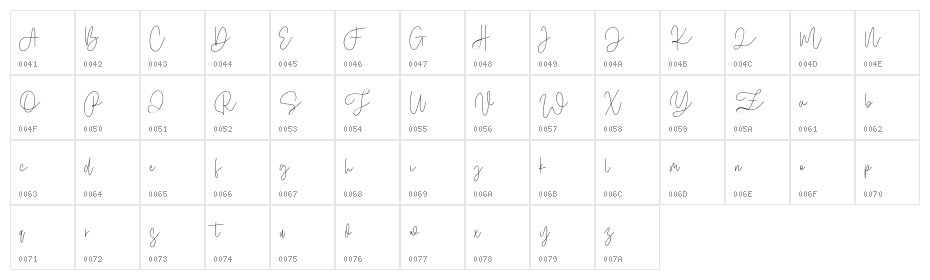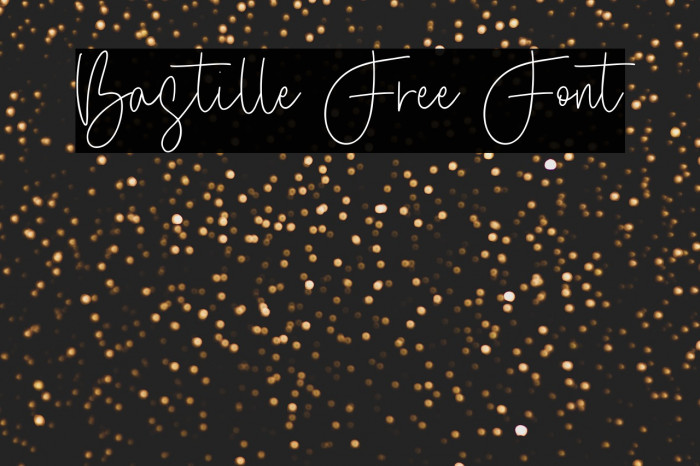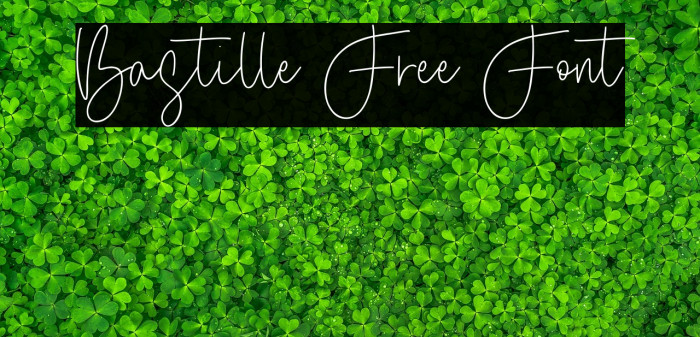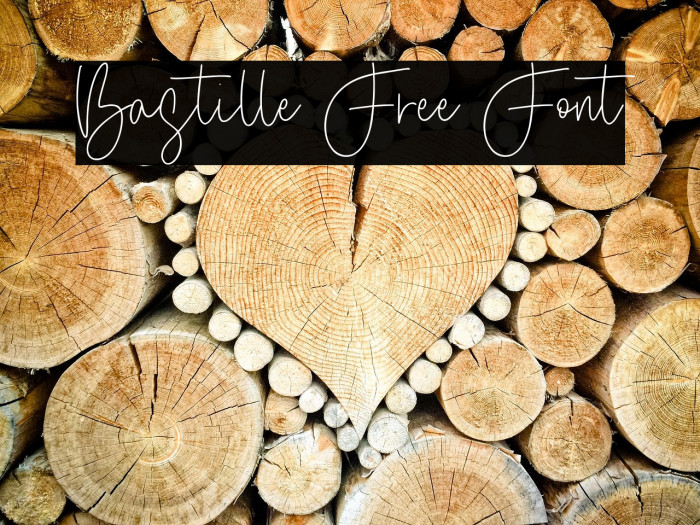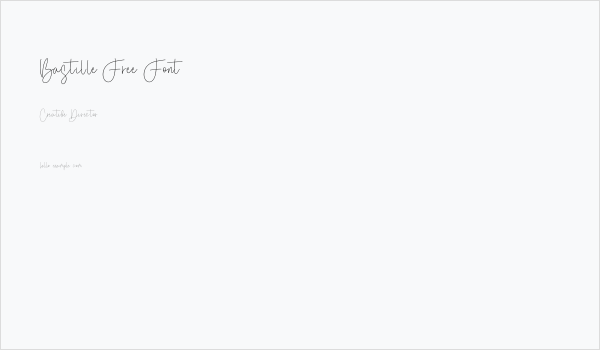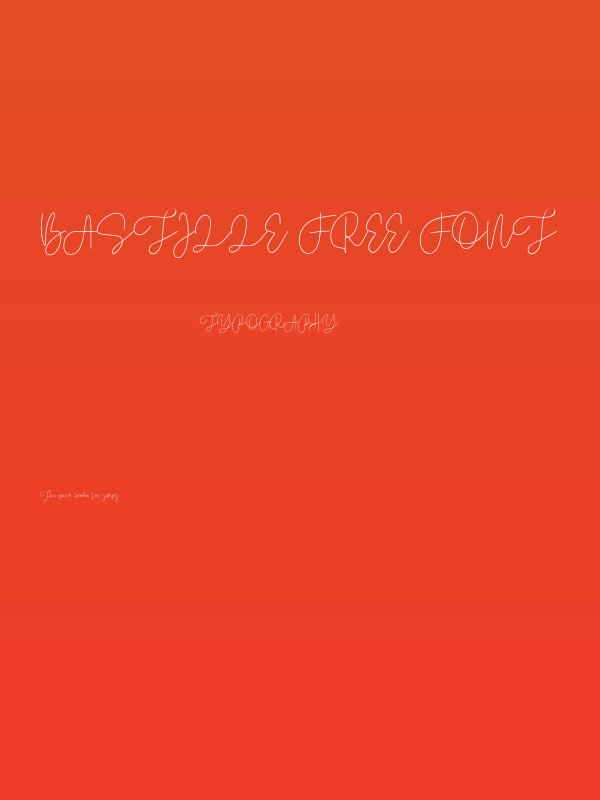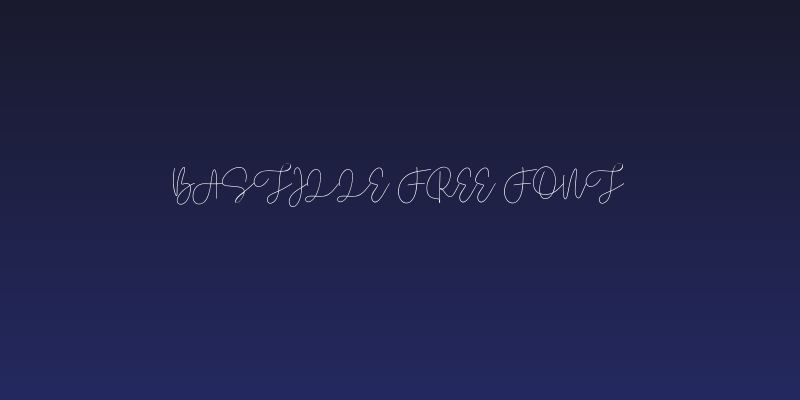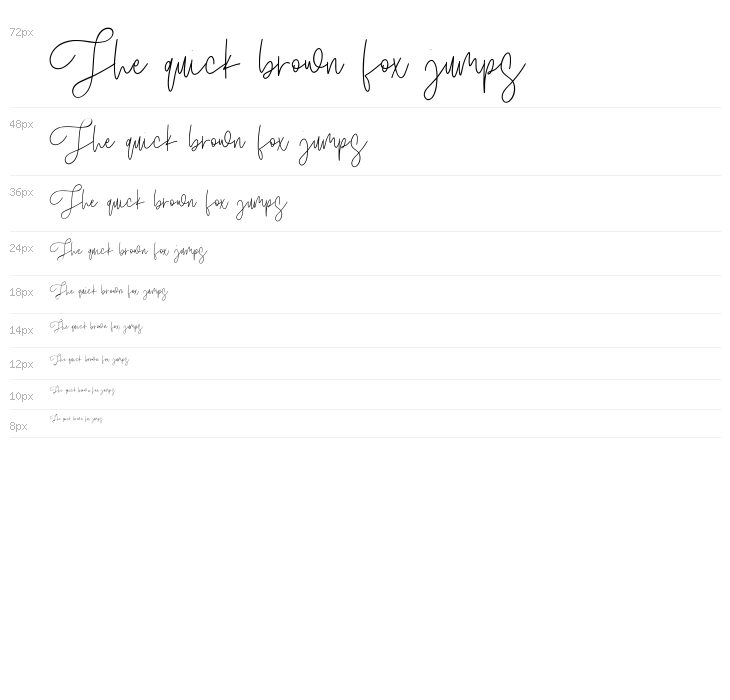
Bastille Free Font Font
Bastille Free Font Description
This font features an elegant and flowing script style, characterized by its delicate and continuous strokes that mimic the fluidity of handwriting. The uppercase and lowercase letters are intricately designed with loops and curves, giving a sense of movement and grace. The font maintains a consistent stroke width, offering a harmonious and balanced appearance. Its artistic flair makes it suitable for creative and expressive designs, adding a touch of sophistication and charm.
| Overall Style | Elegant, Artistic |
| Proposed Projects | Ideal for wedding invitations, greeting cards, branding projects, and elegant logo designs. |